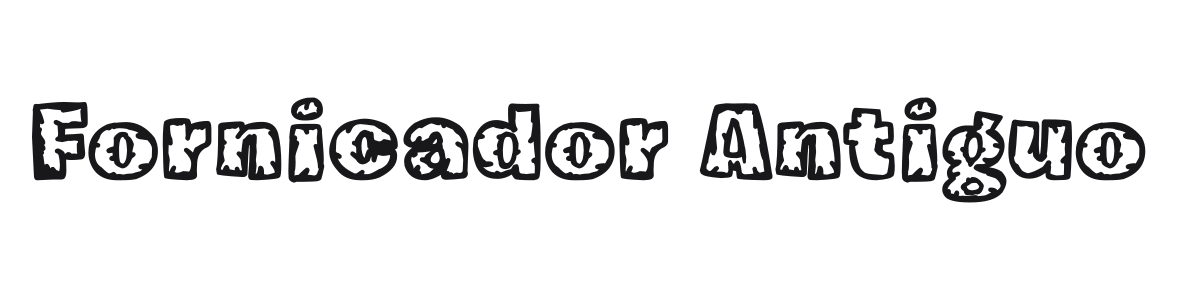
Fornicador Antiguo
Fornicador Antiguo is a bold, heavily textured display serif from Woodcutter that mimics the rough, carved look of woodcut printing. Every character is filled with an irregular, organic pattern that gives it a raw, handmade energy quite unlike a clean digital font. Strong at large sizes on posters, packaging, or anywhere that needs a gritty handcrafted voice.